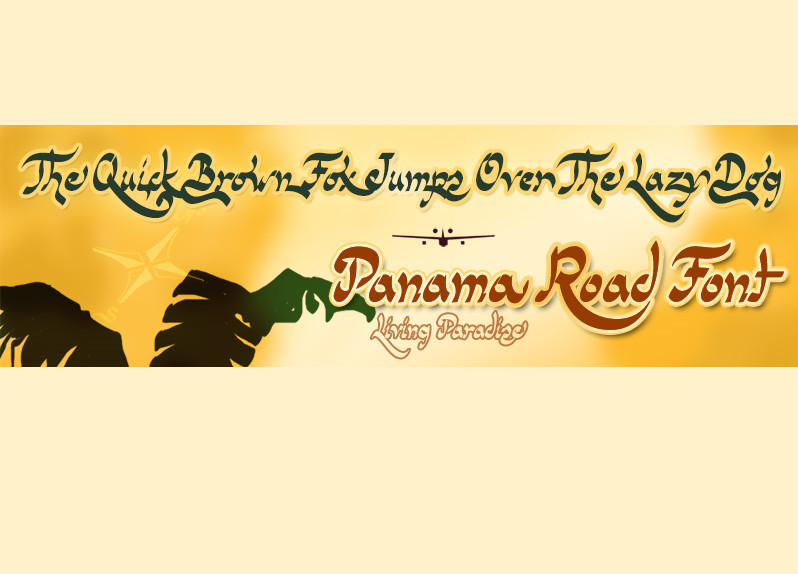
Panama Road Font
Panama Road is a calligraphic font style informal and casual appearance, drawn freehand with pen and then digitized for use in computers. This handwritten font contains several additional character sets for cosmetic purposes such as alternative capital letters to start words or lowercase letters ornaments with terminal end of words (Swashes).